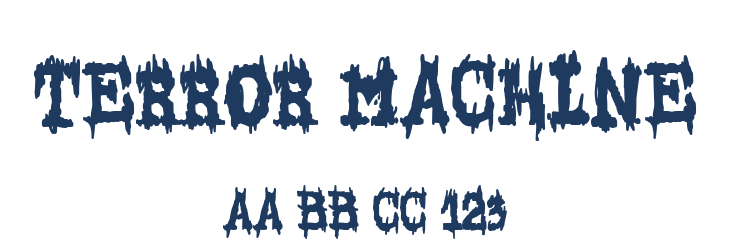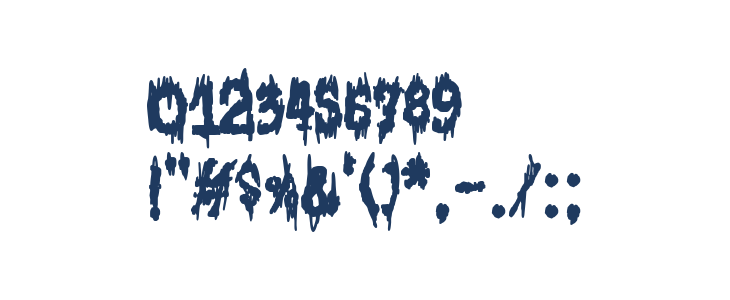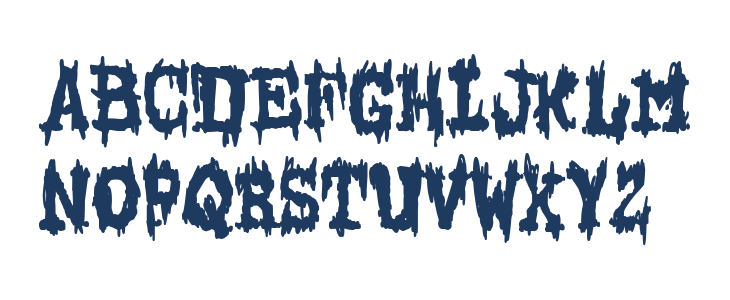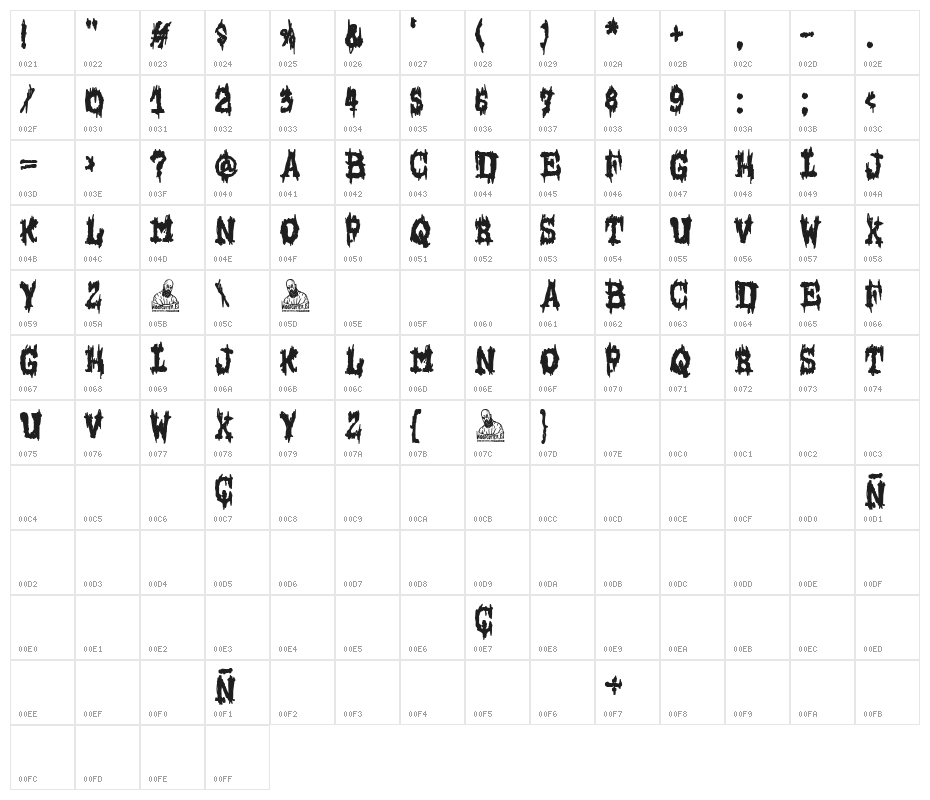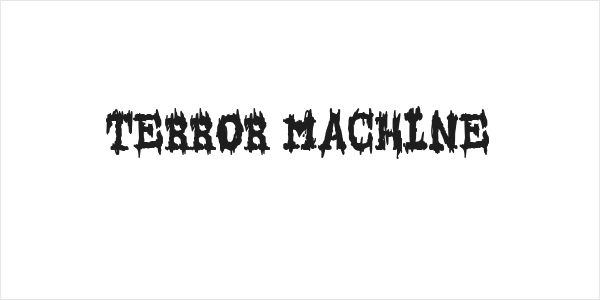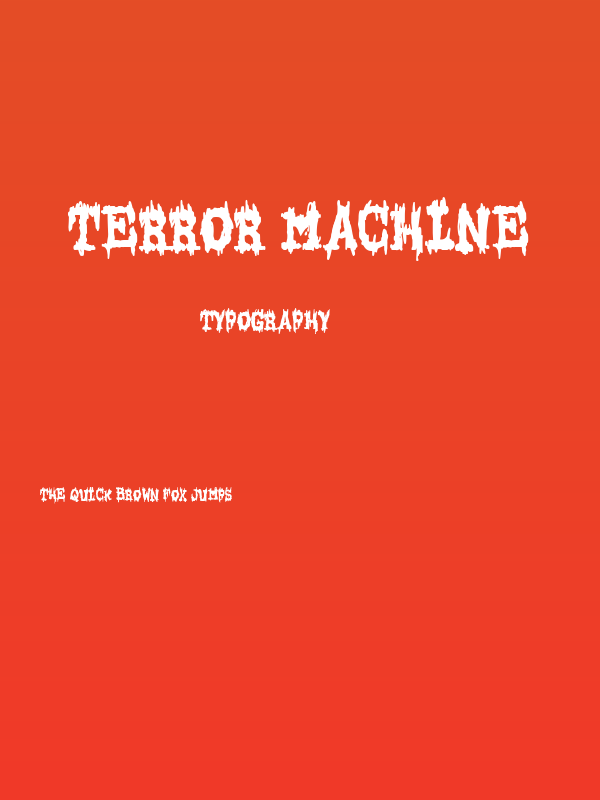
Terror Machine Font
Terror Machine Description
A highly decorative, horror-themed display font with jagged, irregular edges and a dripping effect, evoking a sense of fear or unease. The characters are bold, uppercase, and have a distressed, chaotic appearance, making them stand out dramatically.
| Overall Style | Decorative, Horror, Grunge |
| Use Case | Headlines, Posters, Logos, Event Titles |
| Proposed Projects | Halloween posters, horror movie titles, haunted house flyers, themed party invitations, video game graphics. |